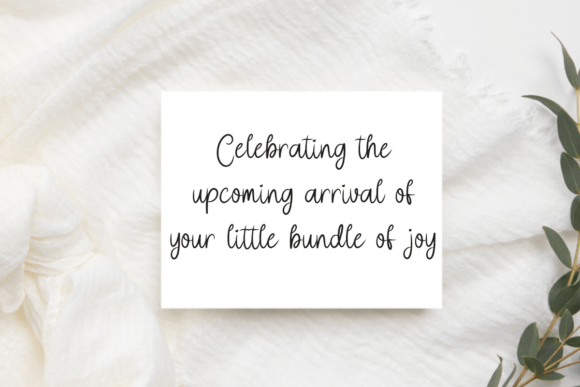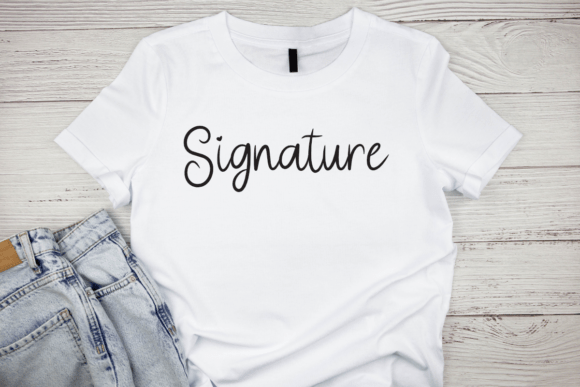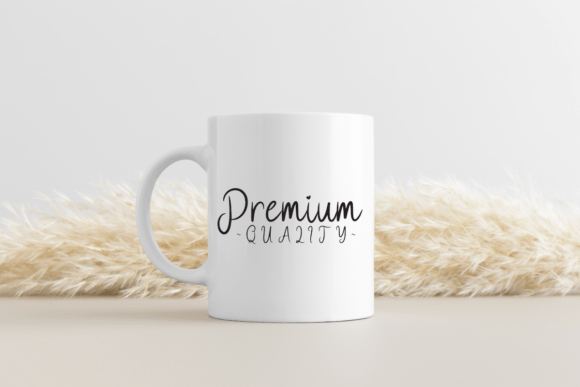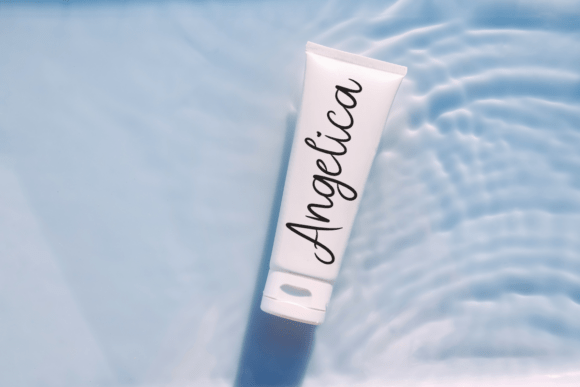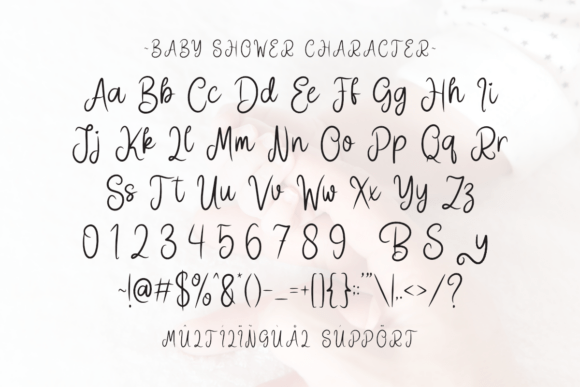
Embracing the Joy of Baby Shower Design
As a designer, there’s something special about creating a custom invitation for a baby shower. You want the design to capture the excitement and love that’s in the air, while also conveying the warmth and elegance of the celebration.
That’s where Baby Shower Font comes in – a modern handwritten script font that adds a touch of sophistication to any design. With its smooth lines and flowing curves, this font is perfect for crafting beautiful baby shower invitations, nursery decor, and greeting cards. Whether you’re a seasoned designer or a creative enthusiast, Baby Shower Font is a valuable addition to your toolkit.
Baby Shower Font Key Features
- Font Family: A custom-designed script font, specifically created for baby shower invitations and decorations.
- Font Size: Designed to be highly legible at font sizes ranging from 12pt to 48pt, making it perfect for invitations, banners, and other decorations.
- Unique Characteristics: Features a whimsical, hand-drawn style with subtle flourishes and decorations, adding a touch of elegance and sophistication to any baby shower design.
- Character Set: Includes a wide range of characters, including uppercase and lowercase letters, numbers, punctuation marks, and special symbols.
Baby Shower Font Review
As a designer, I was excited to try out the “Baby Shower Font” – a font specifically designed for baby shower invitations and decorations. Here’s my honest review.
- ✨ Cutesy and playful vibe: The font has a lovely, whimsical feel to it that’s perfect for baby showers.
- ✨ Wide range of characters: The font includes a variety of characters, including numbers, letters, and symbols, which makes it versatile for different design needs.
- ✨ Good legibility: The font is easy to read, even at smaller sizes, which is essential for invitations and other text-heavy designs.
- ⚠️ Limited customization options: The font doesn’t offer a lot of customization options, which can be limiting for designers who want to make their designs stand out.
- ⚠️ Not ideal for formal designs: While the font is perfect for baby showers, it may not be the best choice for more formal designs, such as wedding invitations or business cards.
The “Baby Shower Font” is a fun and playful font that’s perfect for baby shower designs. While it has some limitations, it’s a great choice for designers who want to add a touch of whimsy to their designs. With some creative workarounds, I can see this font being used in a variety of different designs beyond just baby showers.
Use the Baby Shower Font to add a playful and festive touch to:
- Baby shower invitations and cards
- Baby-themed decorations and banners
- Personalized baby gifts and keepsakes
For best results, pair the Baby Shower Font with pastel colors and baby-themed graphics.